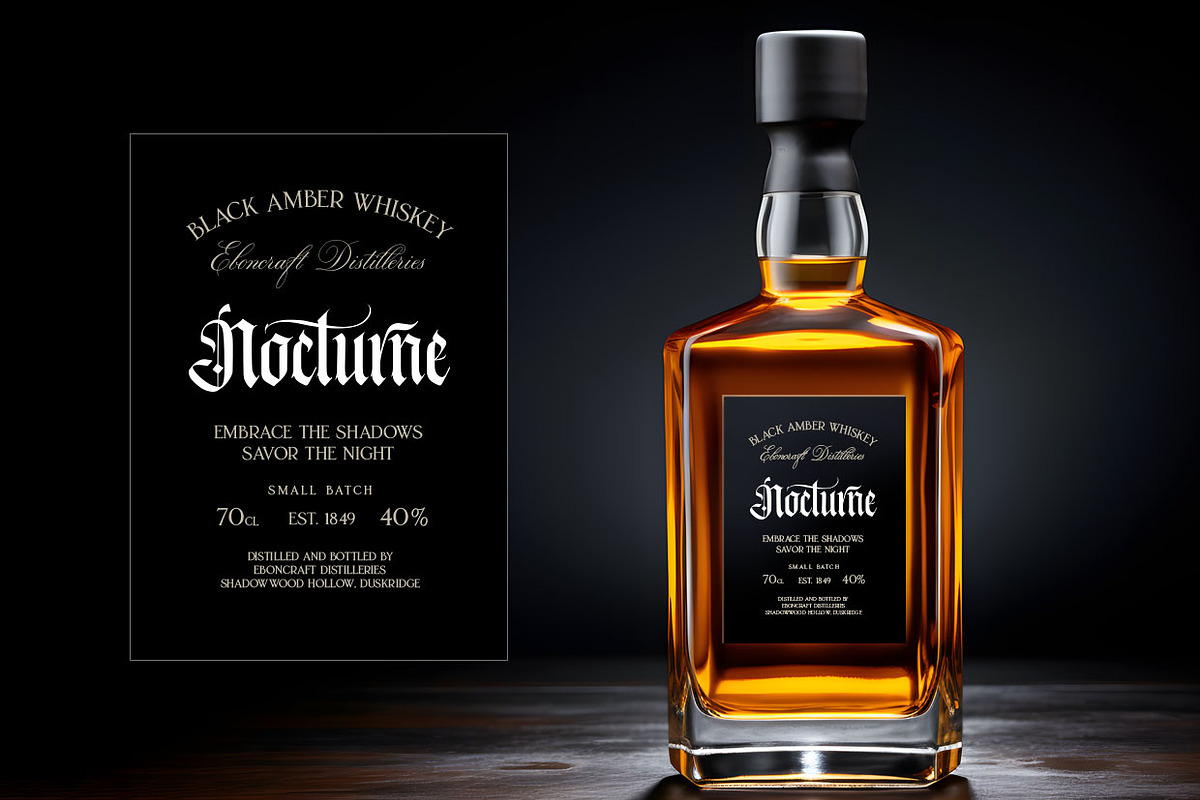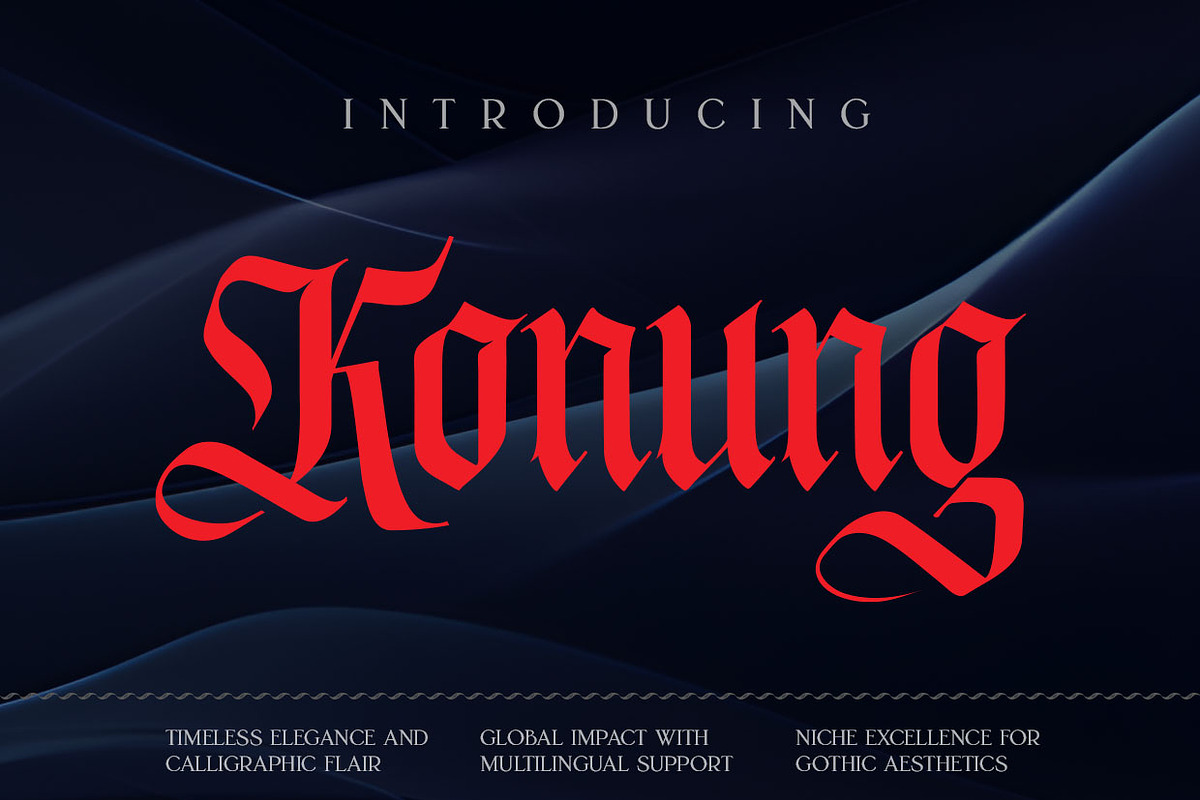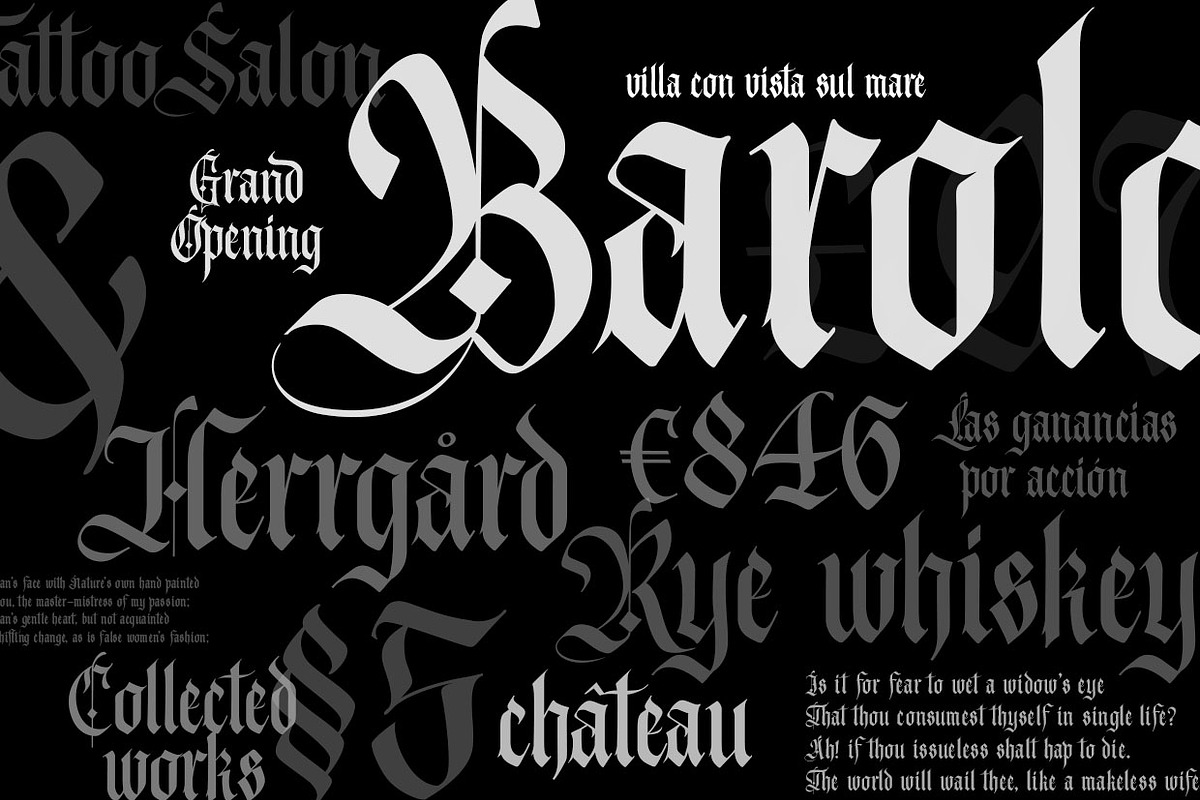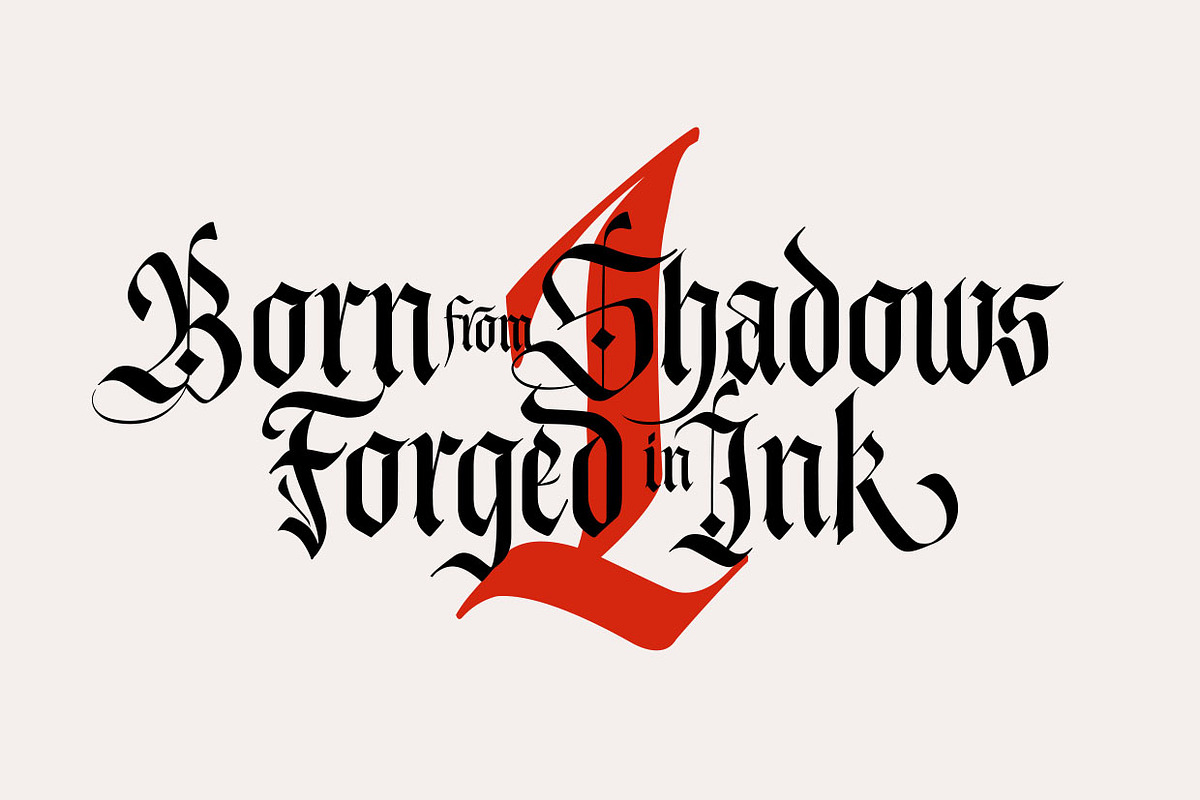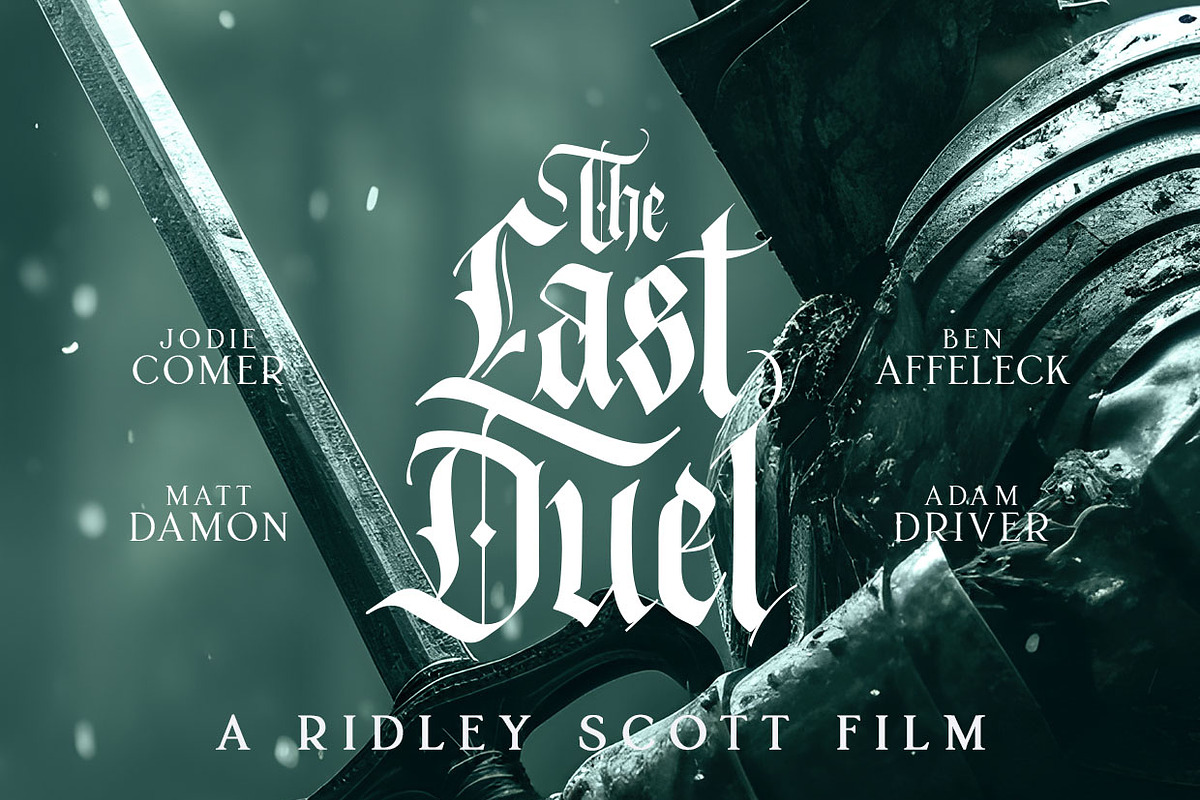
Konung Display Gothic Font
Immerse yourself in the captivating world of our gothic-inspired font, that seamlessly marries tradition and modernity. With meticulous attention to detail, this font exudes timeless elegance, boasting intricate curves that cast a spell of mystery and sophistication. Beyond its dark allure, this font offers versatility. Featuring multilingual support, a variety of alternates, and some nice ligatures, it empowers you to infuse your designs with a unique touch. Ideal for tattoos that echo ancient wisdom or modern rock band covers that pulse with energy, this font channels both the enigmatic and the bold, making it an essential tool for the contemporary creator seeking a touch of the extraordinary